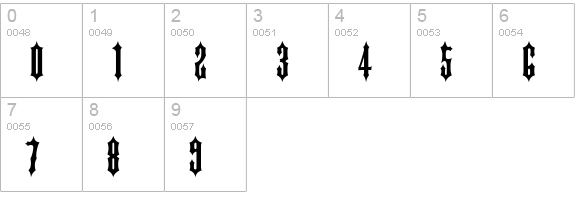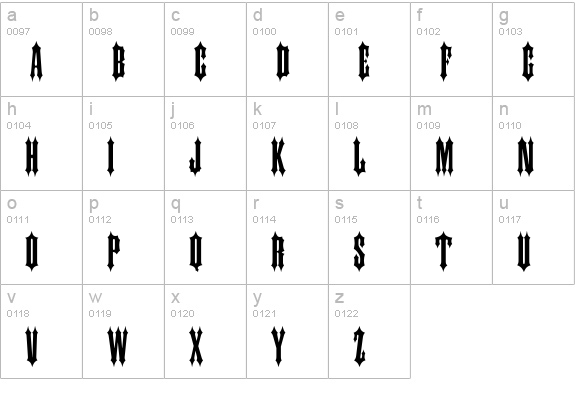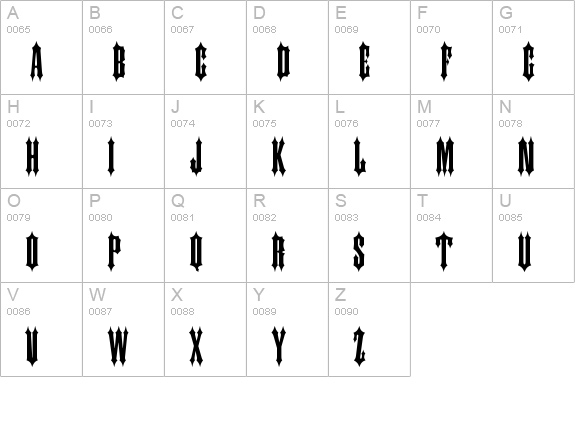
Cantina SSi Font Details
Cantina SSi font is a bold and eye-catching typeface that exudes a sense of modernity and sophistication. With its sleek and dynamic design, this font is perfect for adding a touch of elegance to any project. The sharp angles and clean lines of Cantina SSi make it stand out from the crowd, giving your text a contemporary and stylish look. Whether you're designing a website, creating a logo, or working on a print project, this font is sure to make a statement. The best part? Cantina SSi font is completely free to download at FontsMarket.com. So you can easily access this stunning typeface and elevate your designs without any cost. Don't miss out on the opportunity to enhance your projects with the unique charm of Cantina SSi font. Download it today and start creating with style and flair.